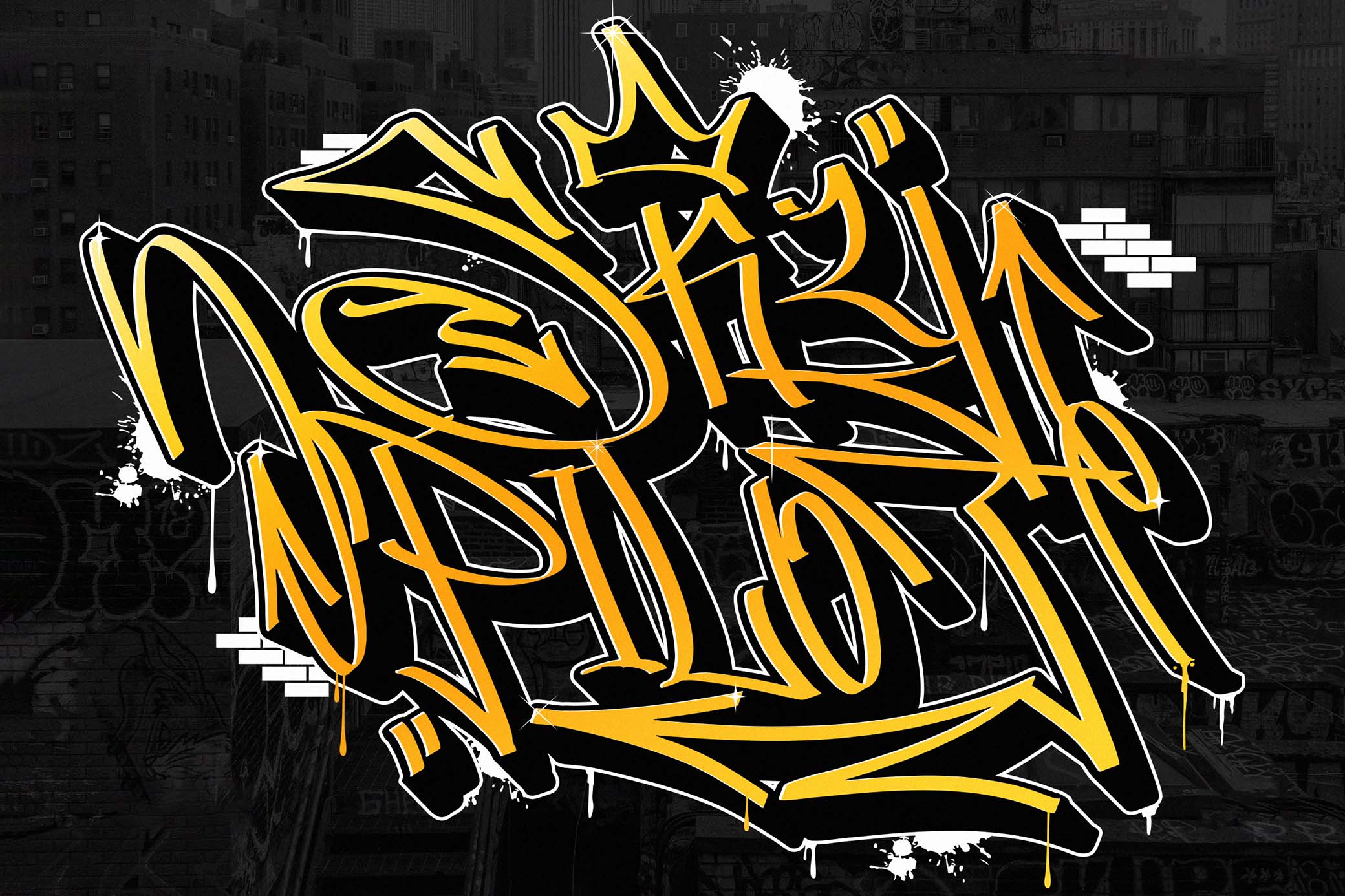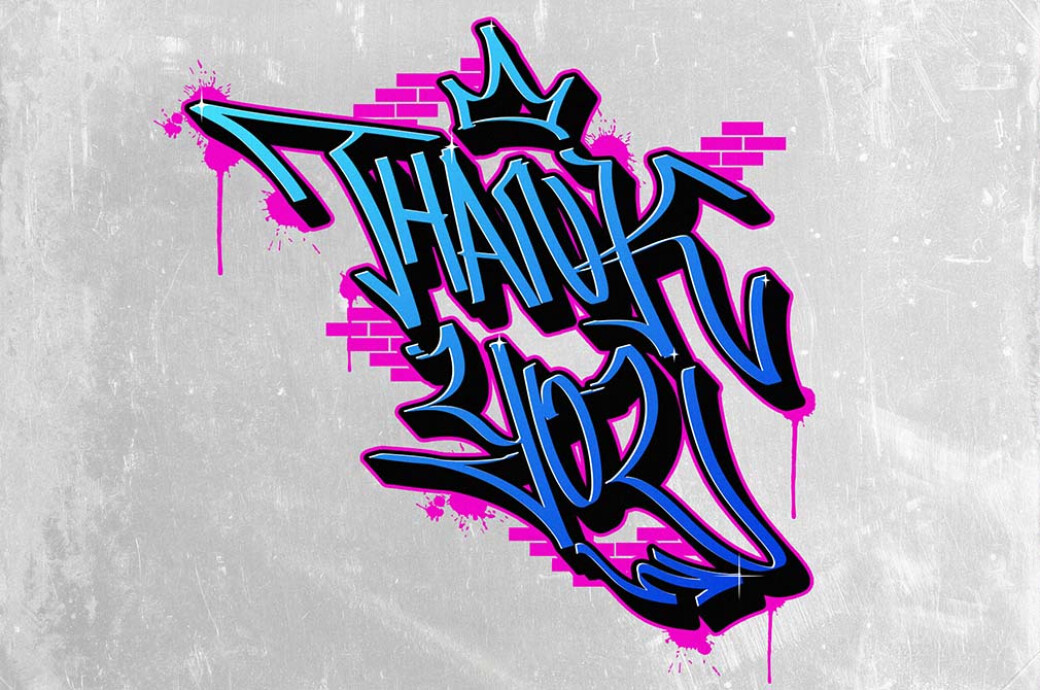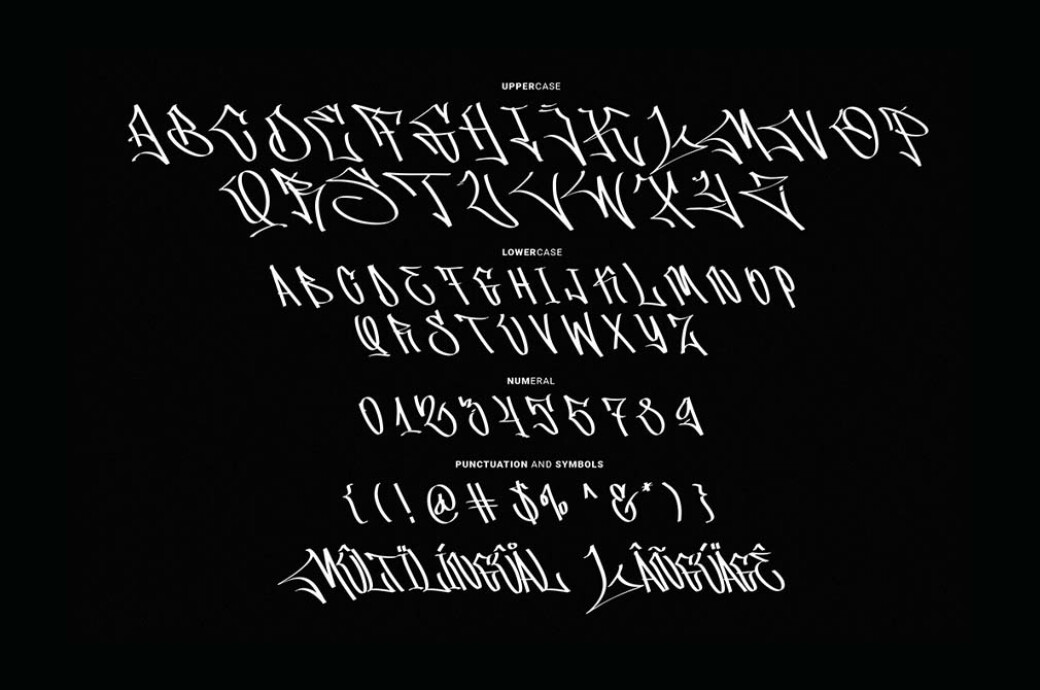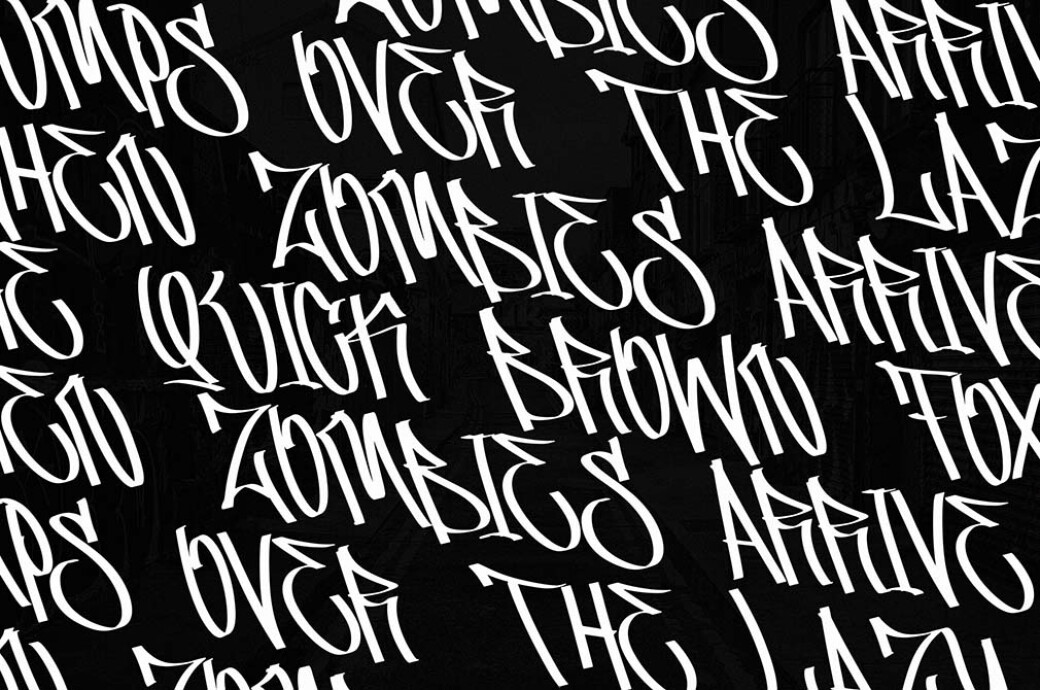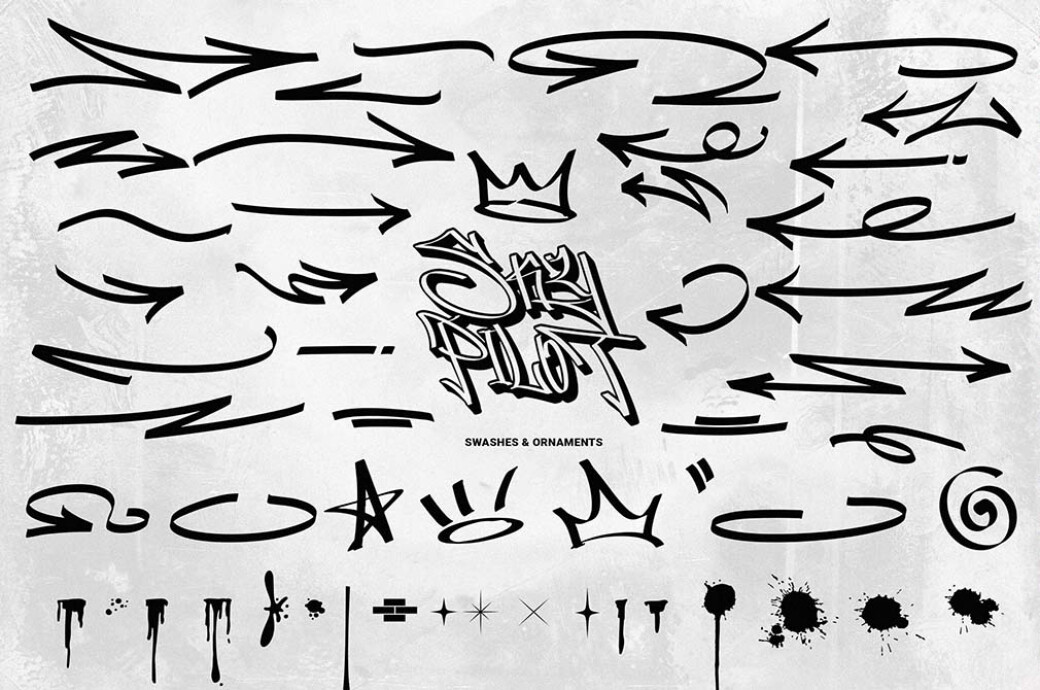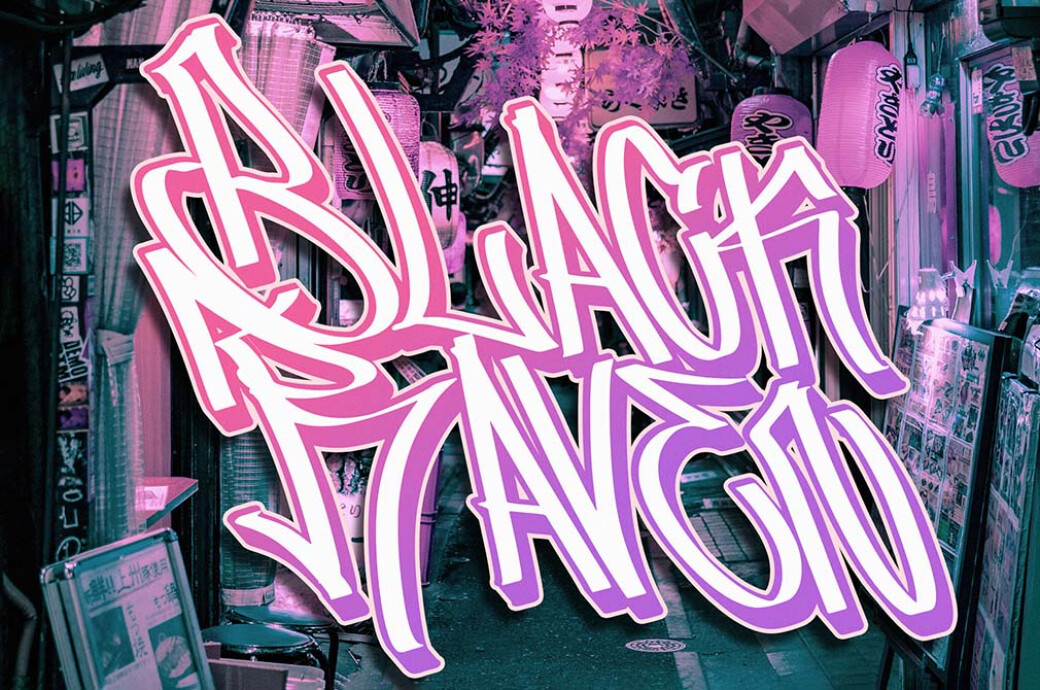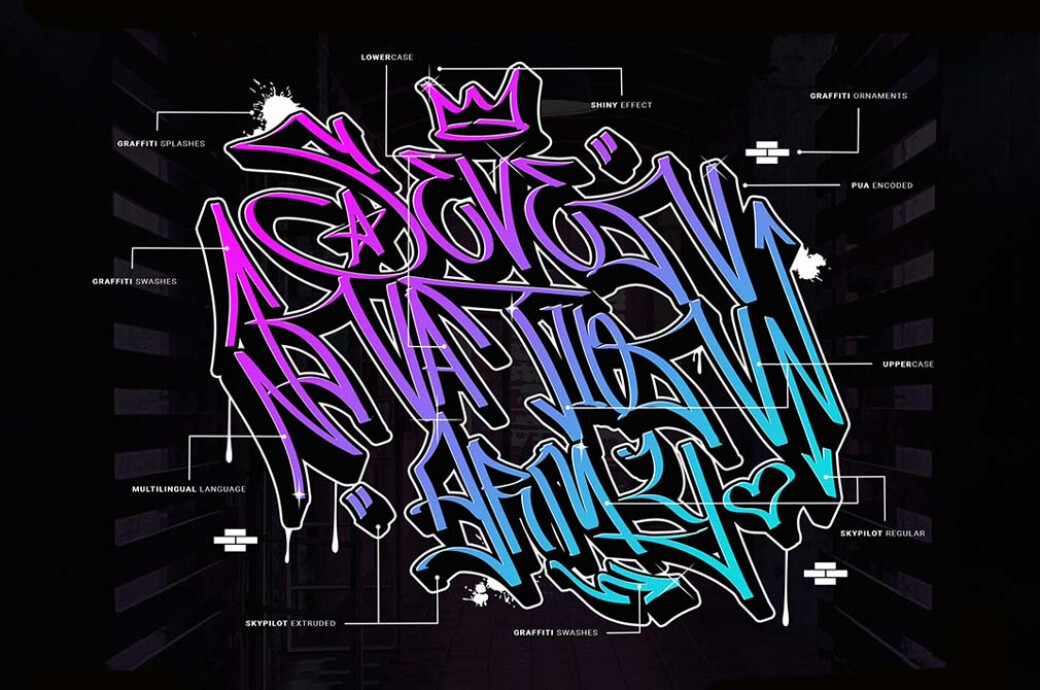
Skypilot Graffiti Font
Each letter of this font is a work of grunge art, perfect for rebellious designs that scream street style. Dare to be edgy with Skypilot!A wave of inspiration is getting ready to blow your mind! Skypilot is a grunge font that provides a full set of upper and lowercase letters, numbers, punctuation, and multilingual support. It also has over 100 graffiti swashes and ornaments, so get creative and experiment!